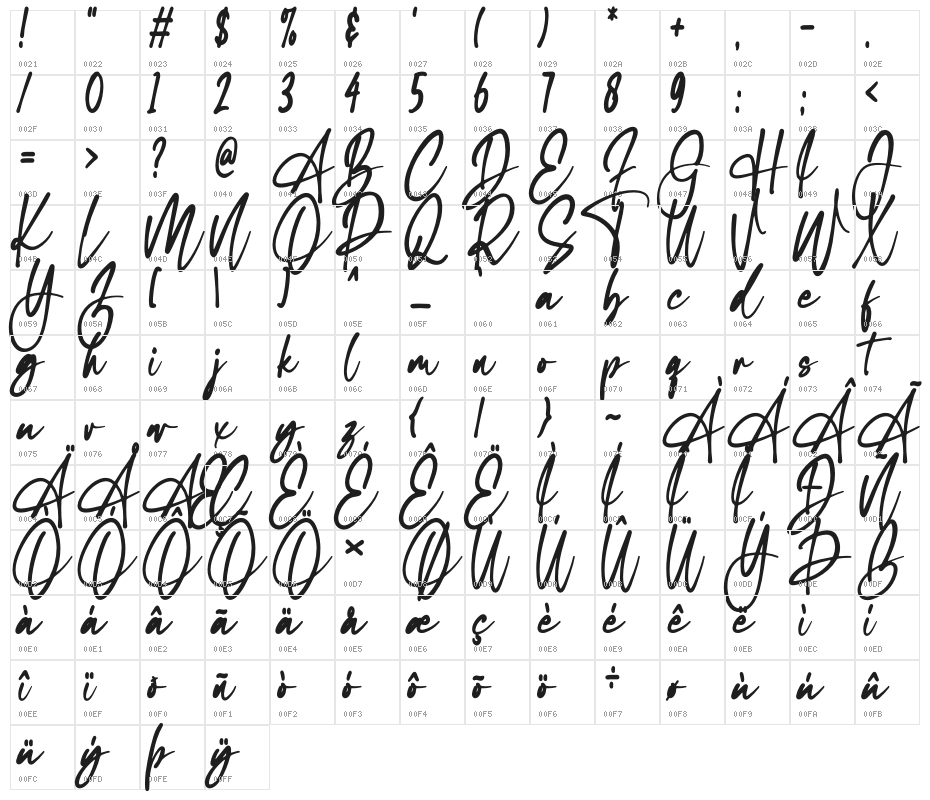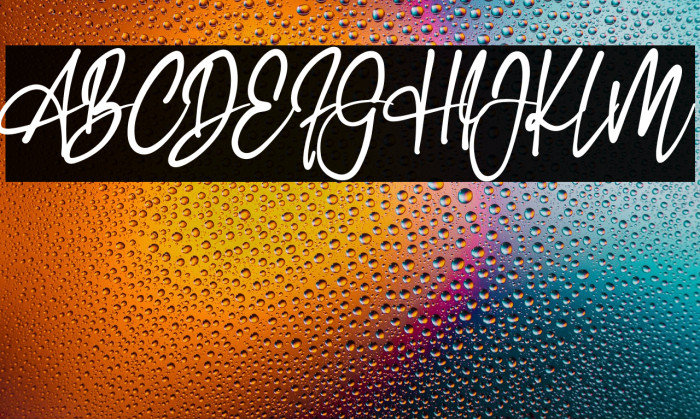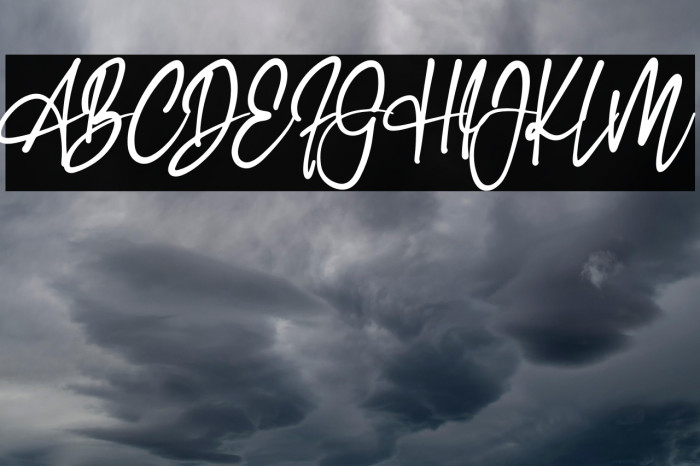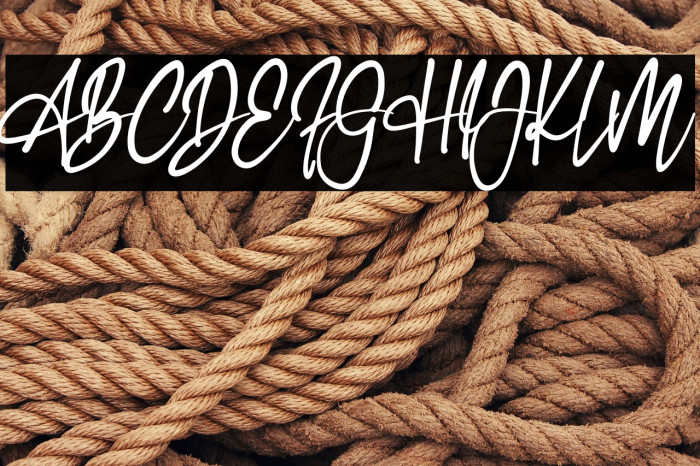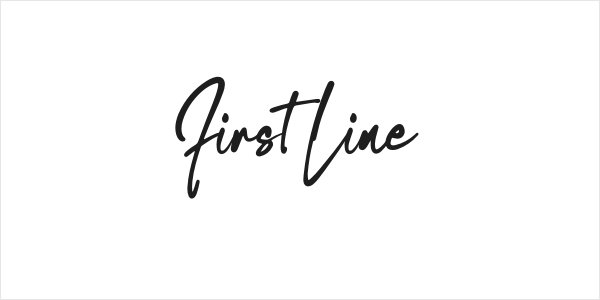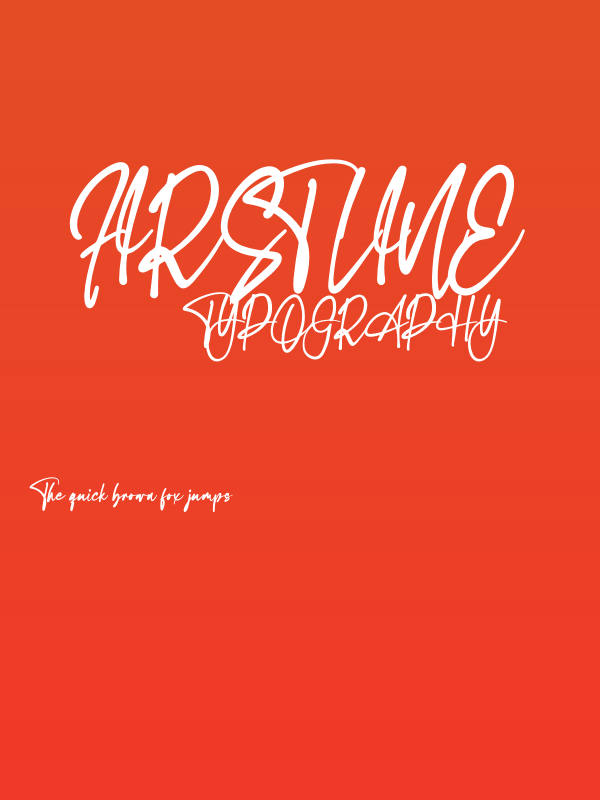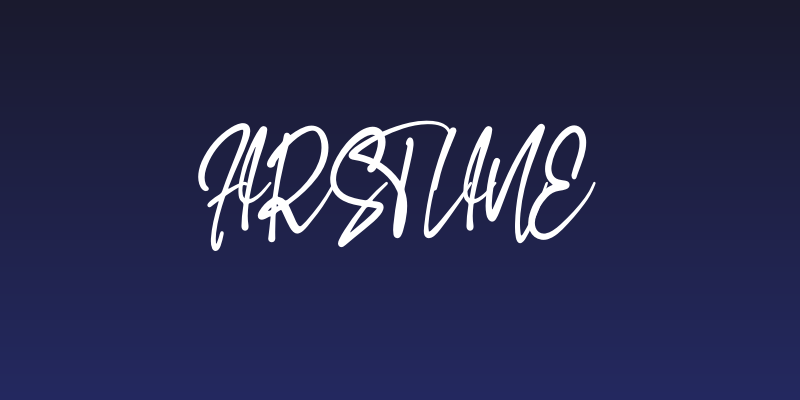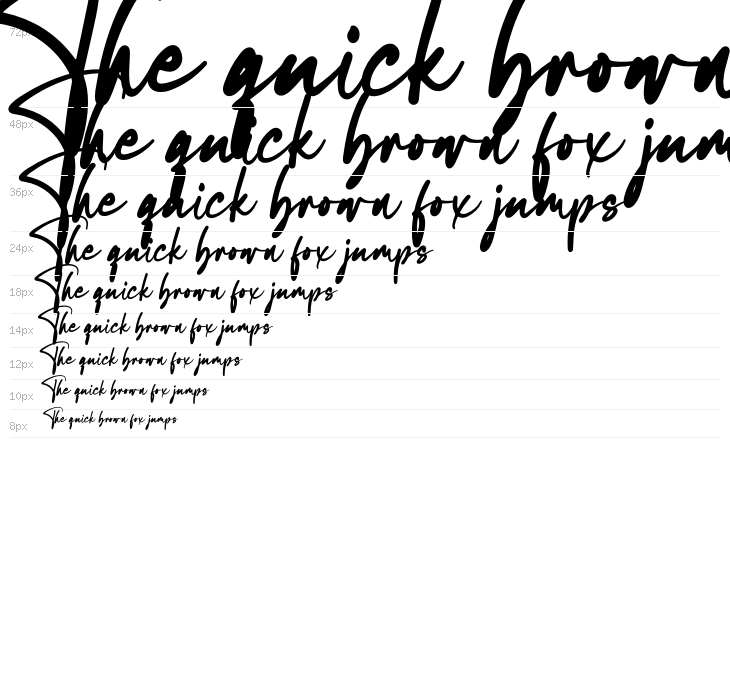
First Line Font
First Line Description
This font exudes a dynamic and energetic vibe with its bold, cursive script style. The letters are fluid and connected, giving a sense of motion and elegance. The uppercase letters are tall and slightly slanted, while the lowercase letters maintain a consistent flow, enhancing readability. The numbers and special characters follow the same cursive style, ensuring uniformity across all elements. This font's bold strokes and artistic flair make it stand out, perfect for creative and expressive designs.
| Use Case | Logos, Headlines, Invitations |
| Proposed Projects | Ideal for branding, invitations, greeting cards, and artistic projects requiring a personal touch. |